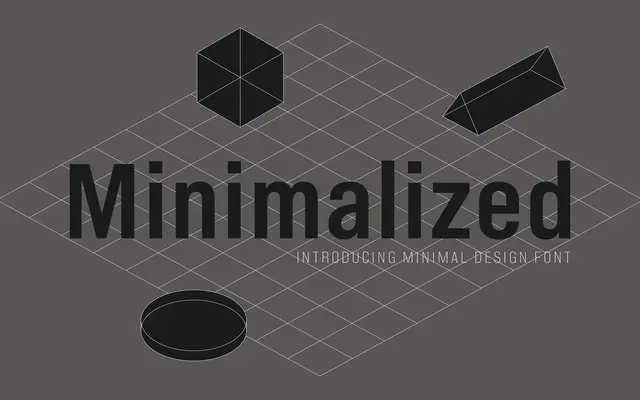
Minimalized
A geometric sans built as an homage to the grid-driven, ornament-free aesthetic of 1990s digital and internet design.
Eight weights with matching italics, each referencing the artificial, modular sensibility that defined early computer-era graphic design. The designer frames it as a personal tribute to the period in which he first studied design, capturing the stripped-back neutrality that emerged from widespread adoption of computers. Broad Latin language support makes it practical alongside its nostalgic premise.
The typeface draws on the modular, grid-based aesthetic of 1990s digital design, placing it firmly in the geometric sans tradition with an industrial, reductive character.